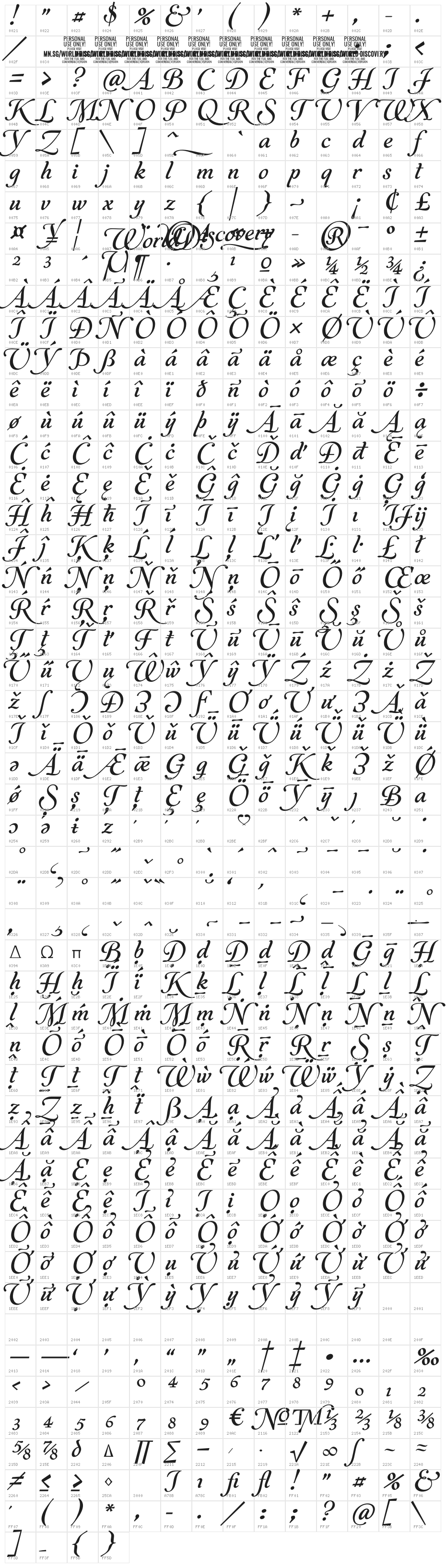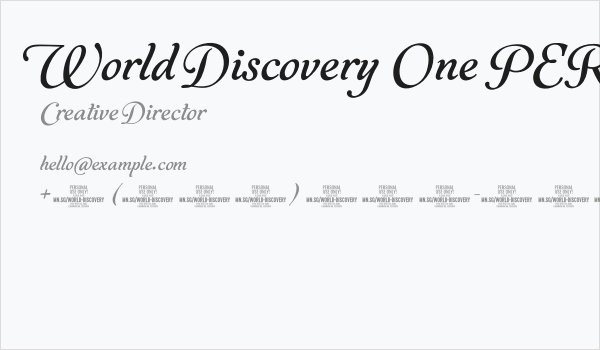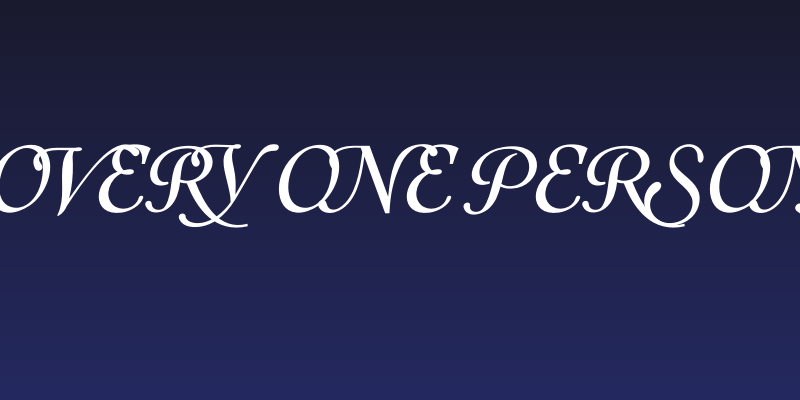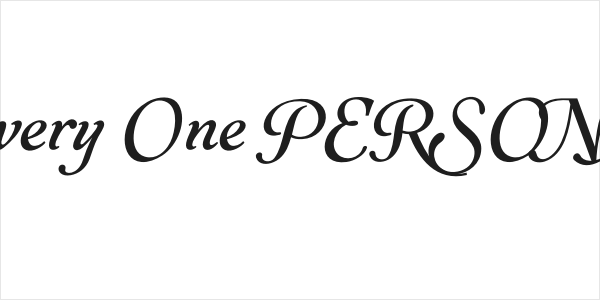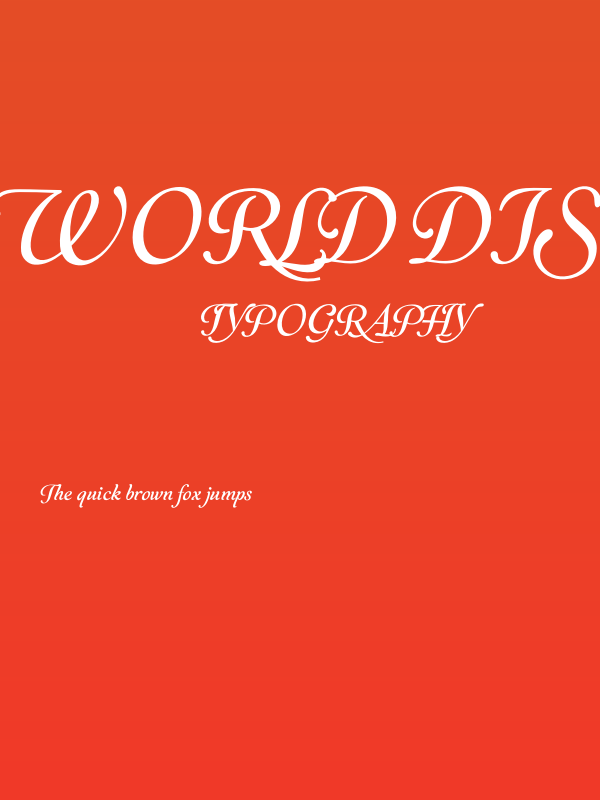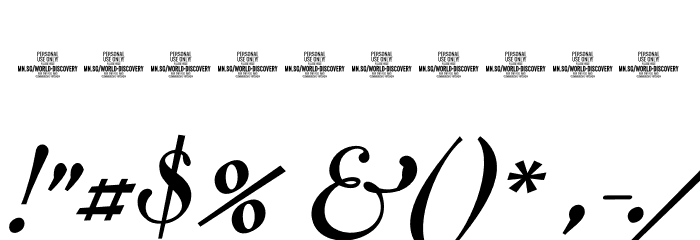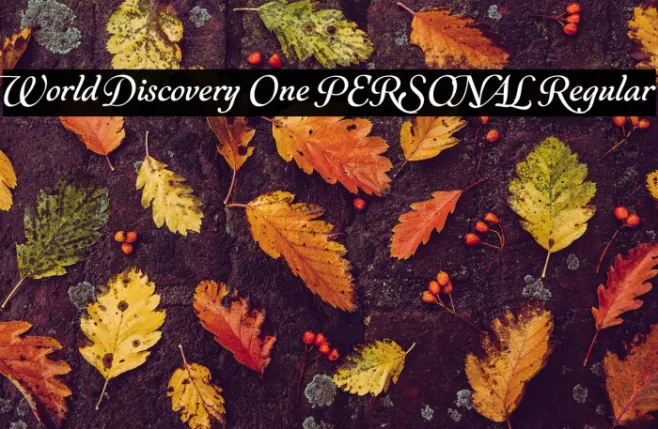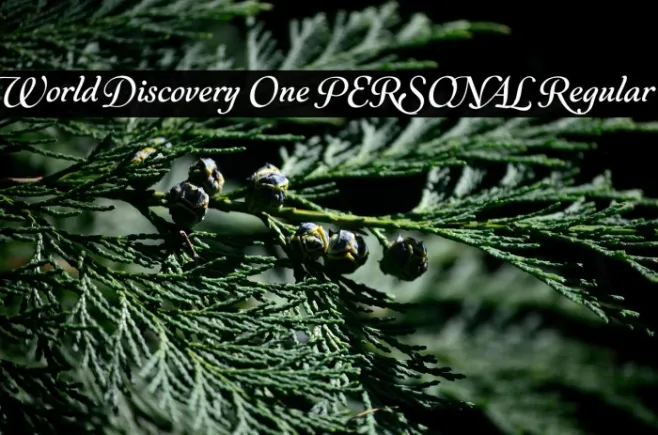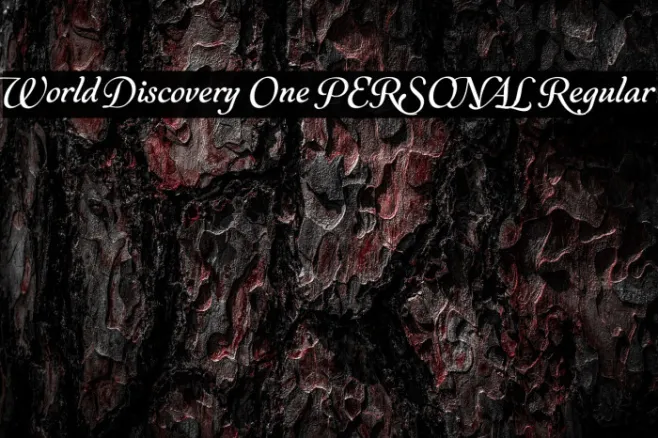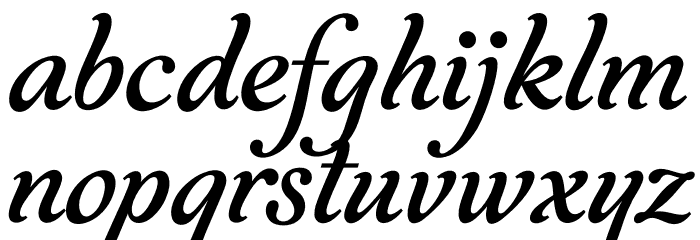
World Discovery One PERSONAL Regular Font
World Discovery One PERSONAL Regular Description
This font features an elegant and flowing script style, characterized by its cursive letterforms and smooth, connected strokes. The uppercase letters exhibit a sophisticated flair with decorative swashes, while the lowercase letters maintain a consistent and harmonious flow. The numerals and special characters are designed with a similar attention to detail, ensuring a cohesive appearance across all glyphs. This font's overall aesthetic is both classic and refined, making it suitable for a variety of formal and creative applications.
| Overall Style | Classic |
| Use Case | Logos, Invitations, Decorative text |
| Proposed Projects | Ideal for wedding invitations, elegant branding, greeting cards, and luxury packaging. |